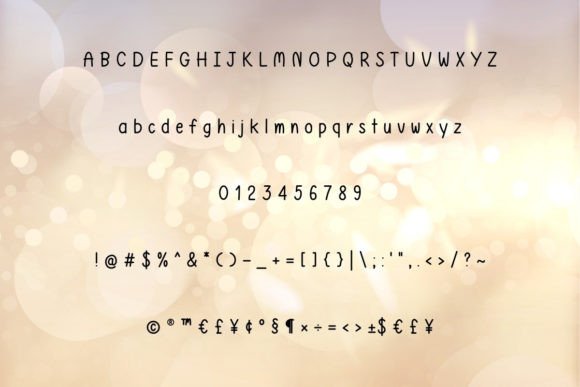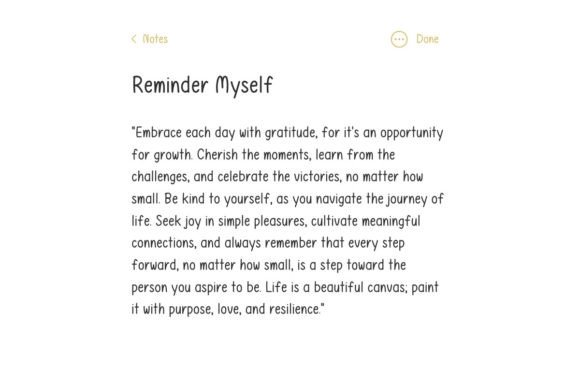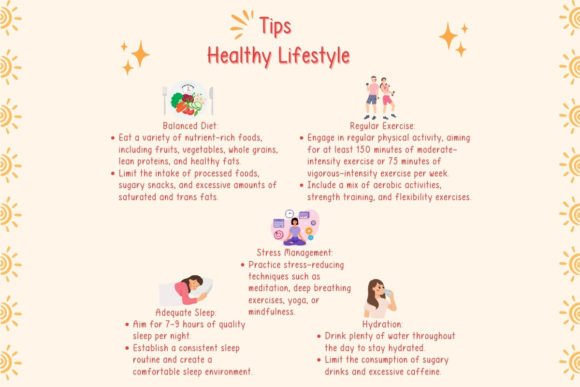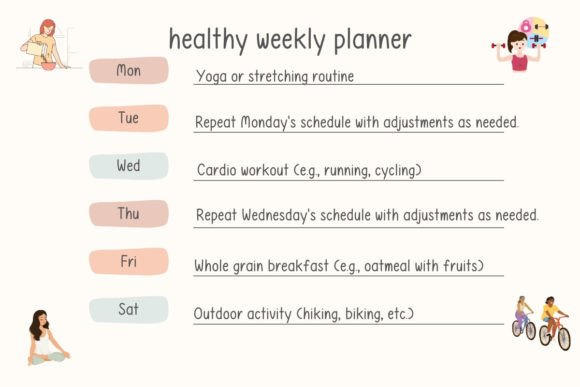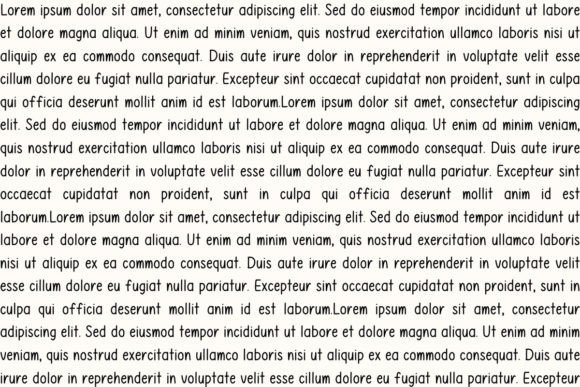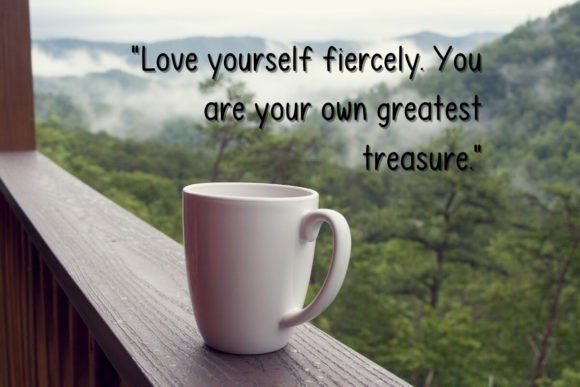
Introduction to Leechy Font
Elevate your designs with this clean and versatile font, perfect for a range of creative projects.
Bring a touch of modern minimalism to your work and make a statement with “Leechy” This font includes uppercase/lowercase letters, numbers, punctuation, and special characters.
Key Features of Leechy Font
Why Choose Leechy Font?
Leechy Font offers exceptional quality and versatility, making it a valuable addition to your design toolkit. Whether you’re creating for personal projects or commercial use, Leechy Font delivers professional results.